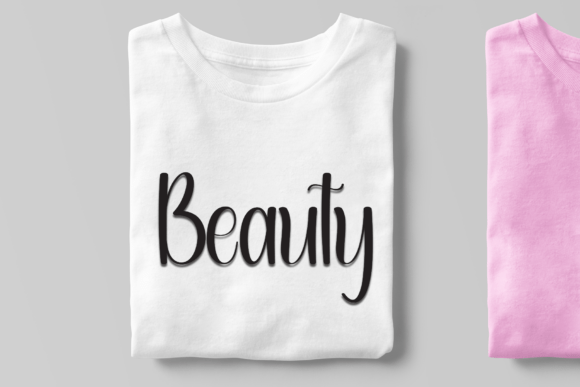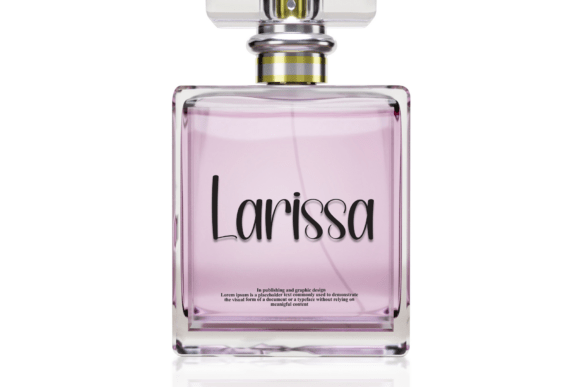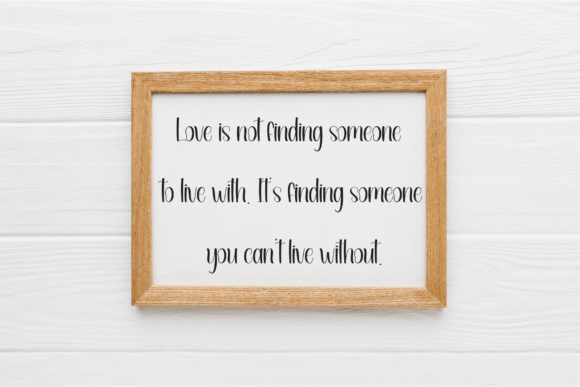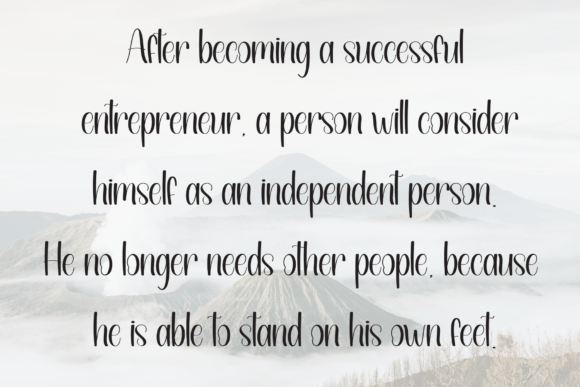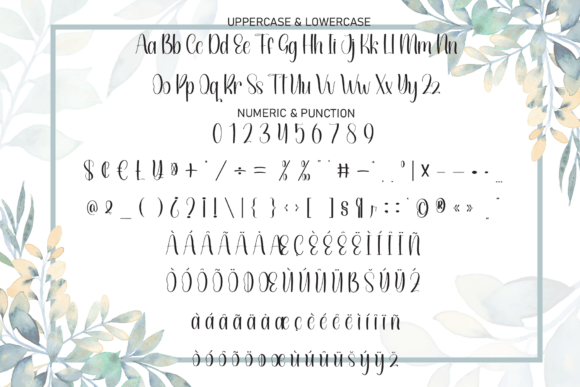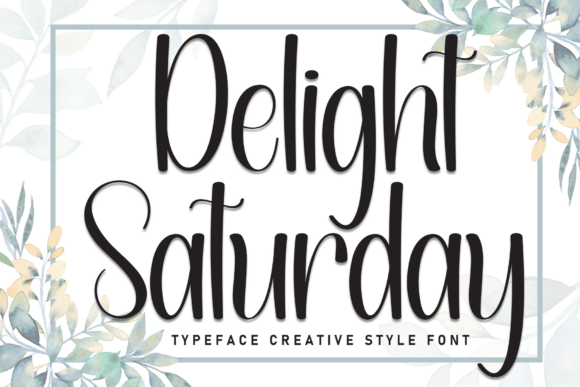
Introducing Delight Saturday Font: The Perfect Blend of Freshness and Friendliness
In the world of typography, fonts play a crucial role in conveying the tone and personality of a brand or design. For designers and crafters looking for a font that exudes a fresh, friendly vibe, Delight Saturday Font is an excellent choice. This casual and neat display font is designed to add charm and clarity to various projects while maintaining a polished appearance.
Clean Lines and Relaxed Structure
Delight Saturday Font boasts clean lines and a relaxed structure, making it perfect for a wide range of applications, including packaging, posters, and social media graphics. The font’s approachable design ensures that it can be easily read and understood, even at smaller sizes. This versatility makes Delight Saturday Font an excellent addition to any designer’s toolkit.
Key Features of Delight Saturday Font
- Casual and Neat Display Font: Delight Saturday Font is designed to make a statement with its clean and elegant lines.
- Fresh and Friendly Vibe: The font’s relaxed structure and approachable design evoke a sense of friendliness and approachability.
- Perfect for Various Projects: Delight Saturday Font is suitable for packaging, posters, social media graphics, and more.
- Polished Appearance: Despite its casual nature, the font maintains a polished and professional look.
Why Choose Delight Saturday Font?
With so many fonts available, why should designers and crafters choose Delight Saturday Font? Here are a few compelling reasons:
- Unique Blend of Style and Clarity: Delight Saturday Font offers a perfect balance of style, clarity, and readability.
- Ease of Use: The font’s clean lines and simple structure make it easy to use in various design contexts.
- Versatility: Delight Saturday Font can be used in both digital and print applications.
- Fresh and Modern Look: The font’s design ensures that your projects will have a fresh and modern appearance.
Using Delight Saturday Font in Design Projects
Delight Saturday Font can be used in a variety of design projects, including:
- Packaging Design: Add a fresh and friendly touch to your product packaging with Delight Saturday Font.
- Poster Design: Create eye-catching posters with a font that radiates a casual and approachable vibe.
- Social Media Graphics: Use Delight Saturday Font to create engaging social media graphics that stand out.
- Branding and Identity: Establish a strong brand identity with a font that exudes friendliness and approachability.
Delight Saturday Font is an excellent choice for designers and crafters looking for a casual and neat display font that radiates a fresh, friendly vibe. With its clean lines, relaxed structure, and polished appearance, this font is perfect for a wide range of design projects. Whether you’re working on packaging, posters, social media graphics, or branding and identity projects, Delight Saturday Font is sure to add charm and clarity to your work.